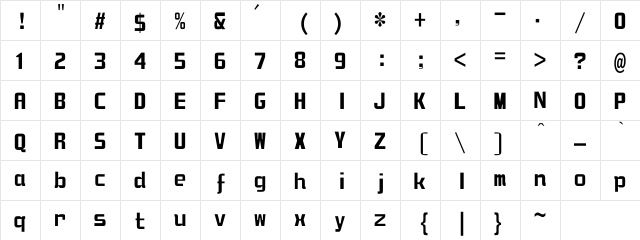
DFZongYiW5U-B5 Regular
Design Context for DFZongYiW5U-B5
DFZongYiW5U-B5 is a composed and adaptable typeface that performs quietly and consistently across a wide range of design contexts.
Pro Tip: Use DFZongYiW5U-B5 in both headline and body roles to test its range before committing to a single application.